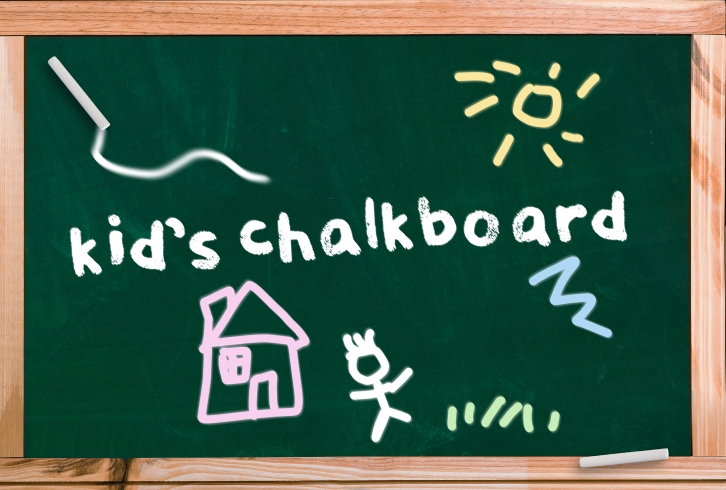
Kids Chalkboard is a handwritten chalk font perfect for children-related projects. This bold, fun, and stylish font can be used for creating cute party invitations, printed quotes, standout packaging, or cool t-shirts!